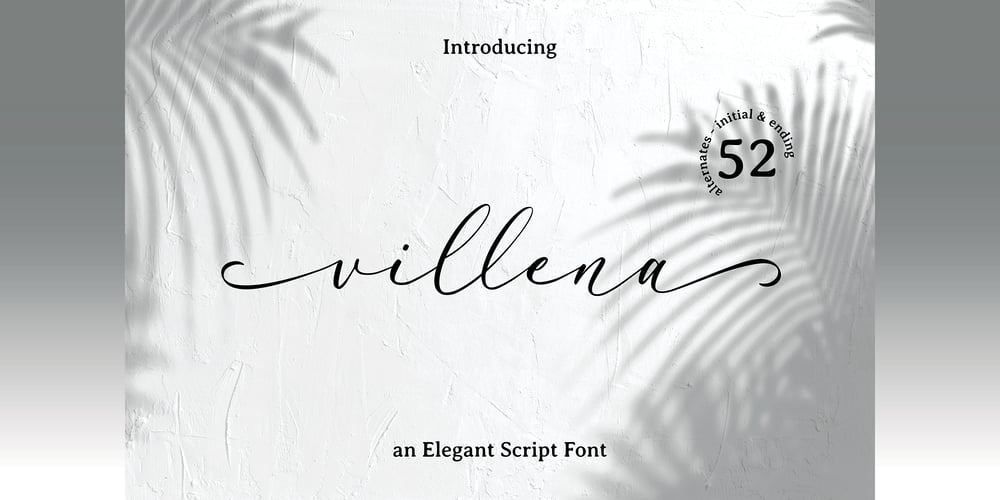
Villena
Villena font
Villena Font Family was designed by Tegar Hafizhal, Robby Hermawan and published by Carpiola Studio. Villena contains 1 styles and family package options. Villena is a magical script font carefully created with a touch of elegance. Whether you’re looking for fonts for Instagram or calligraphy scripts for DIY projects, this font will turn any creative idea into a true piece of art!Villena is PUA encoded which means you can access all of the glyphs and swashes with ease!